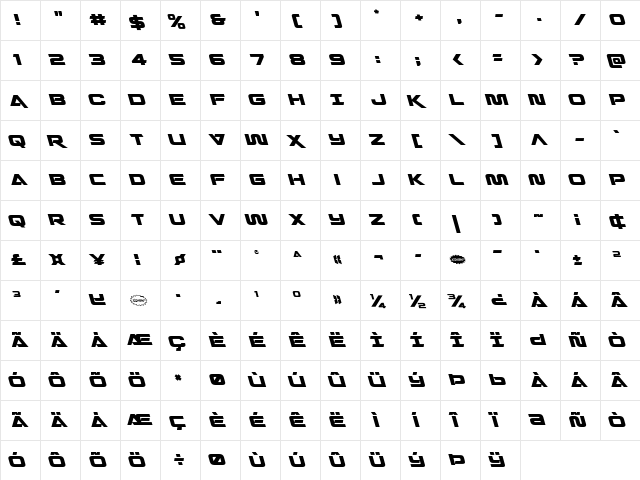
Quark Storm Leftalic Italic Font Preview
Quark Storm Leftalic Italic
Quark Storm Leftalic Italic Font Details
Design Context for Quark Storm Leftalic Typeface
Quark Storm Leftalic is a composed and adaptable typeface that performs quietly and consistently across a wide range of design contexts. Its italic angle brings a sense of urgency and motion to the letterforms.
Pro Tip: Use Quark Storm Leftalic for emphasis, pull quotes, and subheadings where its slanted energy can add rhythm to the layout.